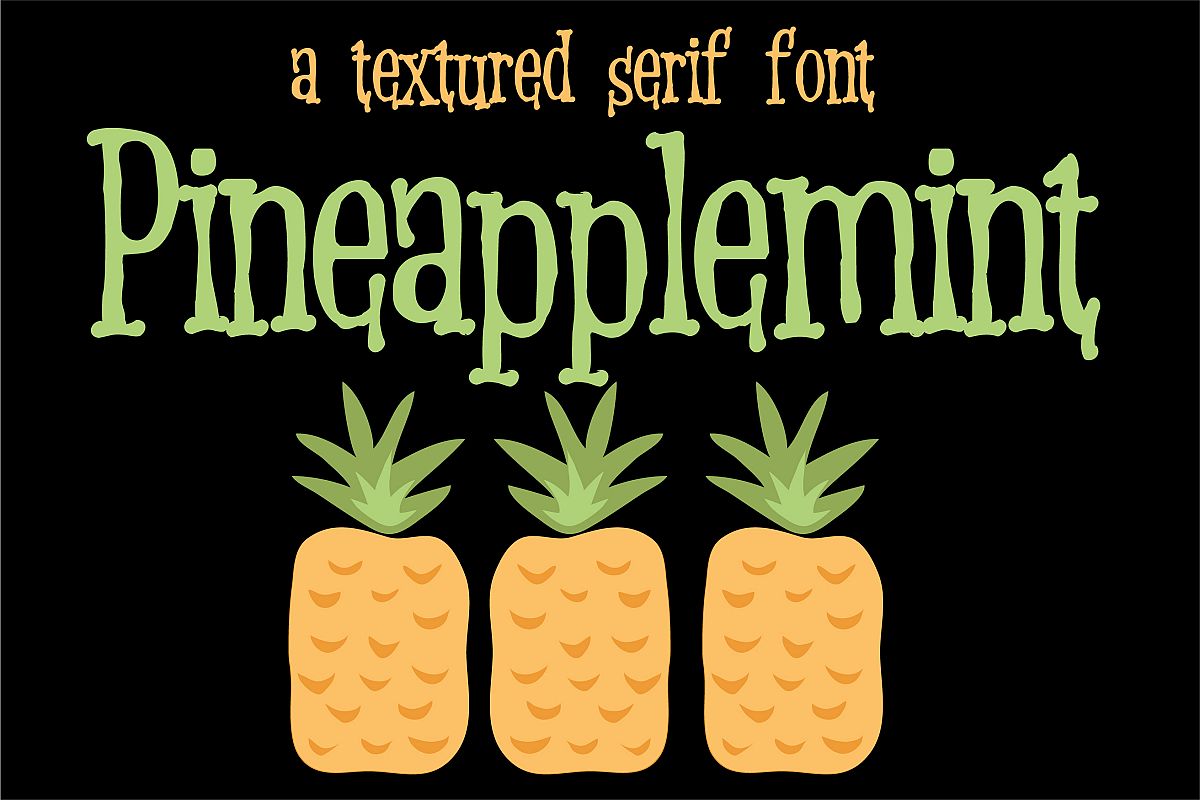
This hand-crafted serif font has a bit of texture throughout but it still remains a great font for using on craft and cutting machines. Check out her sister font, PN Peppermint.